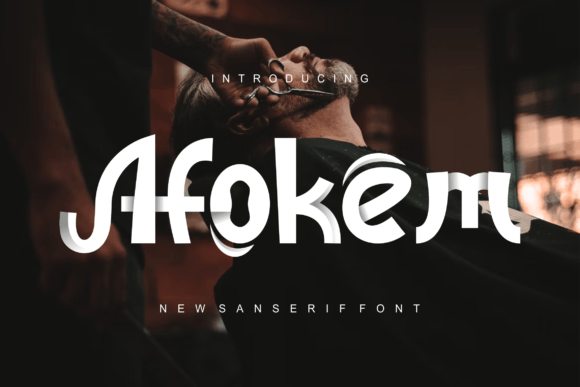
Journey into the realm of visual elegance with Afokem Font, a display font that radiates style and sophistication. This masterpiece, crafted by the visionary cozzdesign0, will elevate your creative endeavors to new heights. Immerse yourself in its captivating aura, and witness how effortlessly it transforms your designs into breathtaking works of art.
Afokem Font is not just a collection of characters; it's an expression of artistic brilliance. Its meticulously crafted letterforms dance across the page, capturing attention and igniting emotions. The bold strokes and graceful curves create a visual symphony that commands attention and leaves a lasting impression.
Imagine your designs adorned with the captivating allure of Afokem Font. Your T-shirts will transform into statements of boldness, conveying your messages with an unmatched impact. Your posters will radiate an aura of sophistication, captivating audiences with their timeless elegance. And your social media graphics will shimmer with a brilliance that sets them apart from the ordinary.
With Afokem Font, you'll discover a font that's not just versatile, but transformative. It breathes life into your creations, infusing them with a personality that resonates with your audience. Unleash your imagination and explore the limitless possibilities it offers, for Afokem Font is your gateway to a world of captivating designs.
Don't settle for ordinary fonts that blend into the background. Embrace the power of Afokem Font and watch as your designs blossom into masterpieces. Its enchanting style will captivate your audience, leaving them spellbound by your creative genius.
Join the ranks of discerning designers who have discovered the magic of Afokem Font. Let your creativity soar, let your designs shine, and let the world witness the transformative power of this extraordinary font.